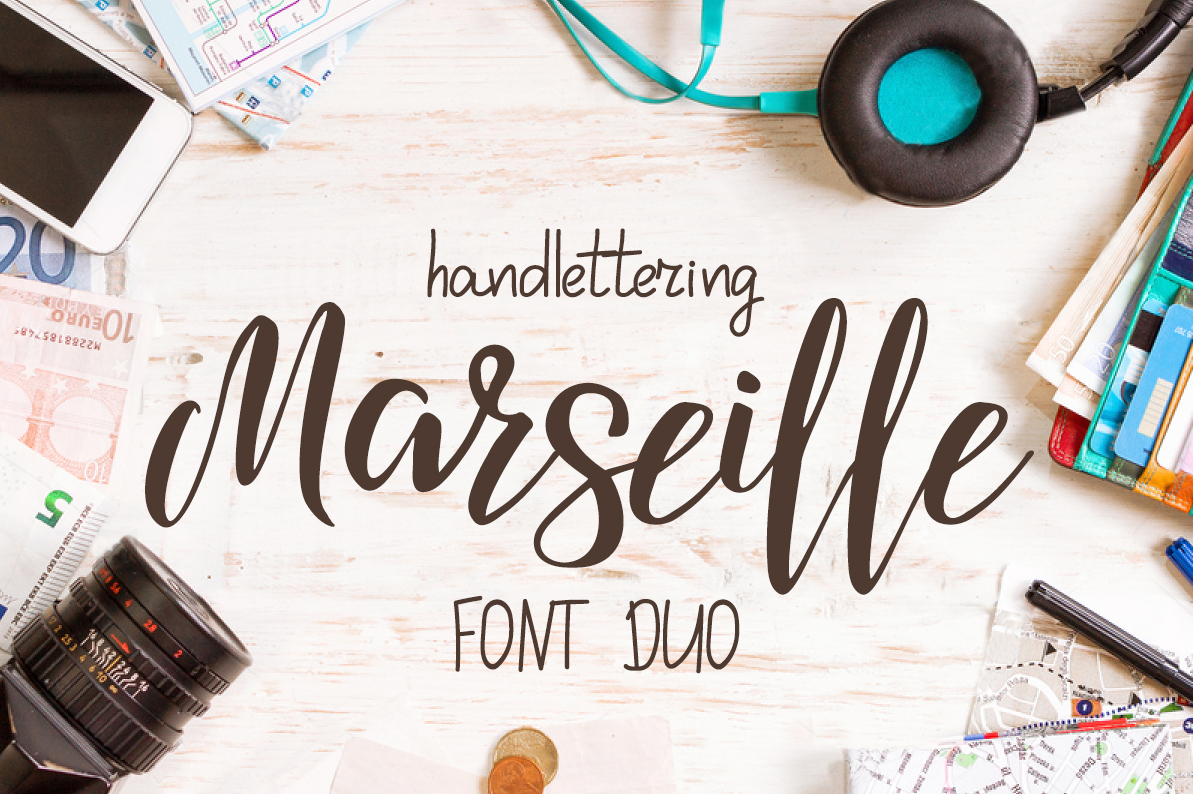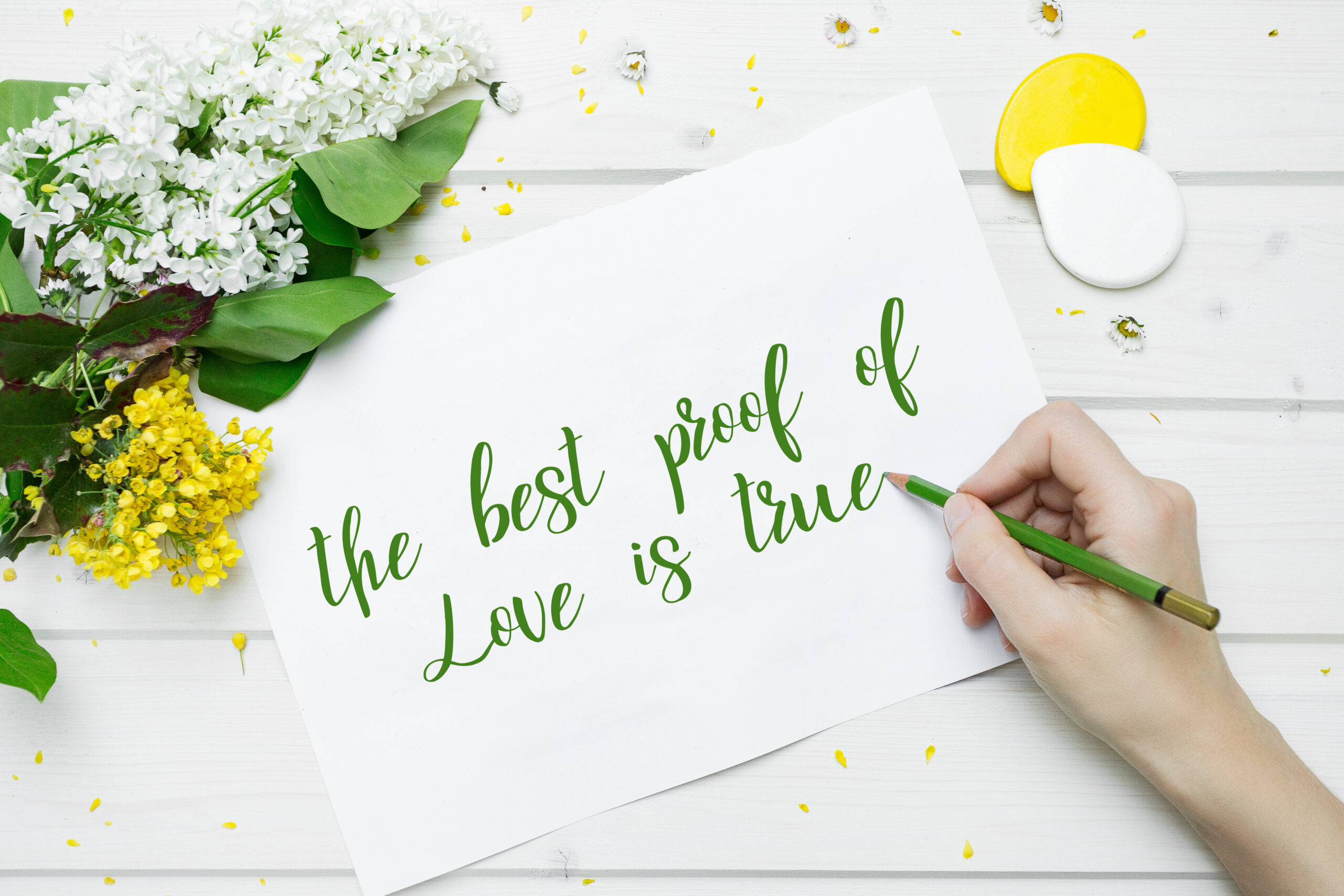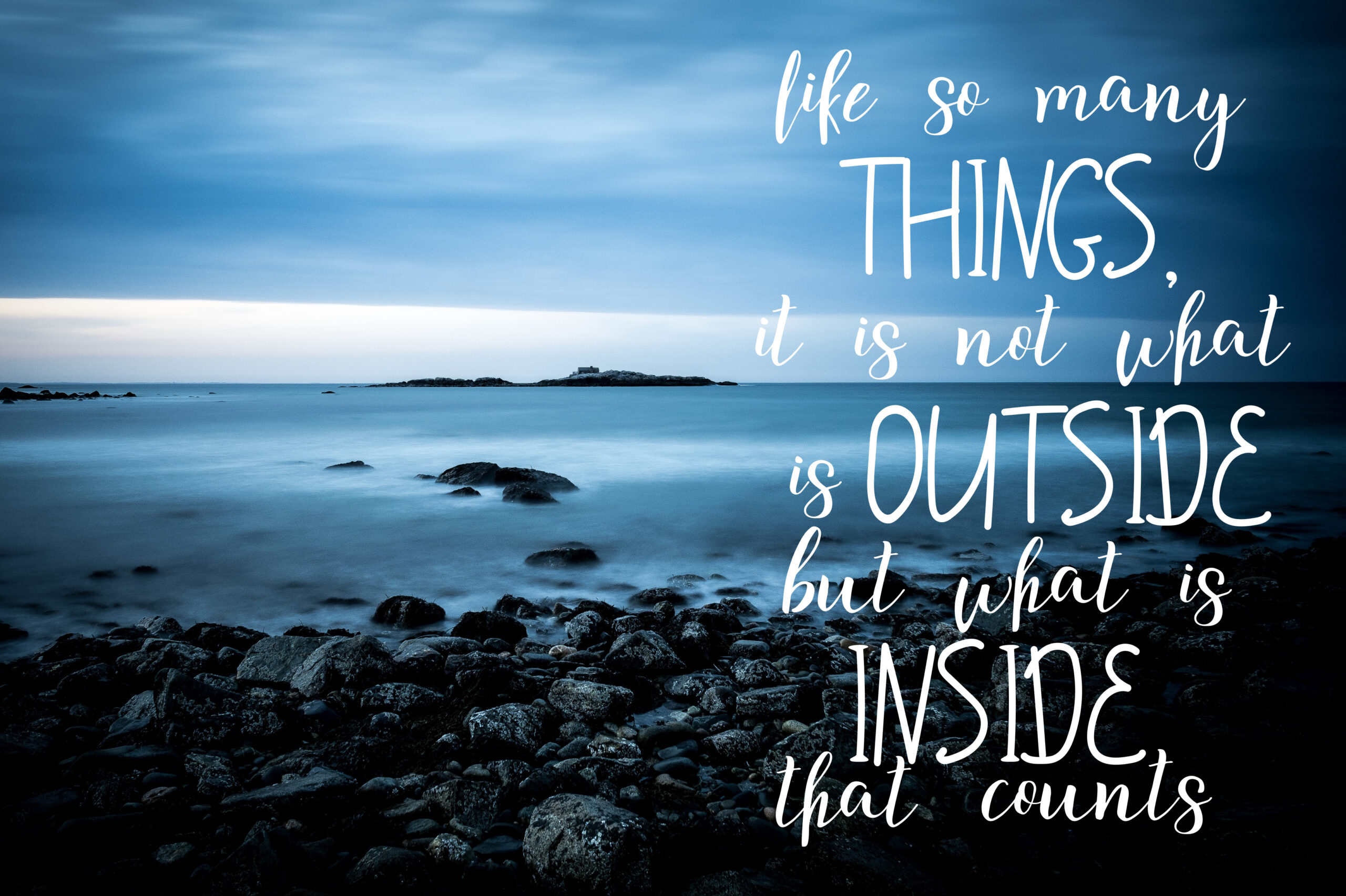
About Marseille Font
Marseille Font Duo is a happy duo of hand lettered and brushed fonts for truly remarkable typographic designs. Marseille Font Duo makes custom lettering a dream thanks to all the little extra decorative options you can include for a pretty and unique customization.